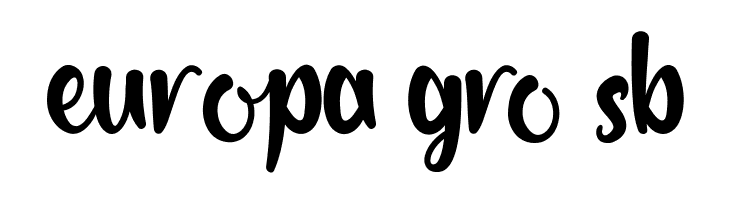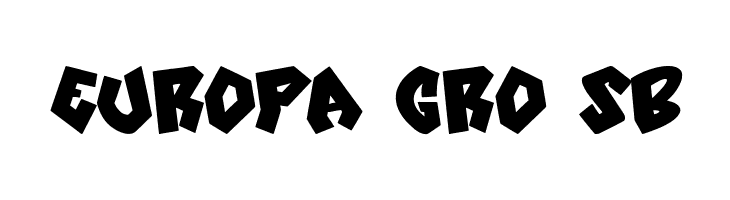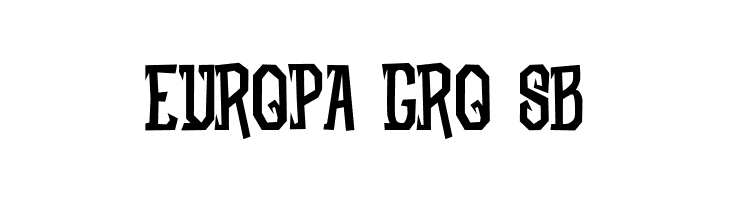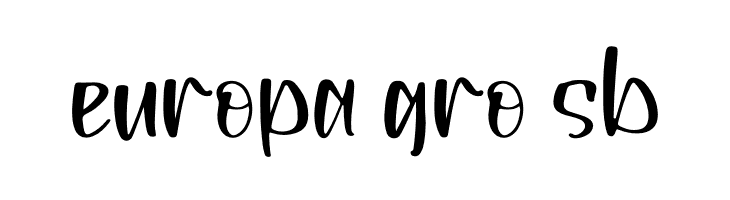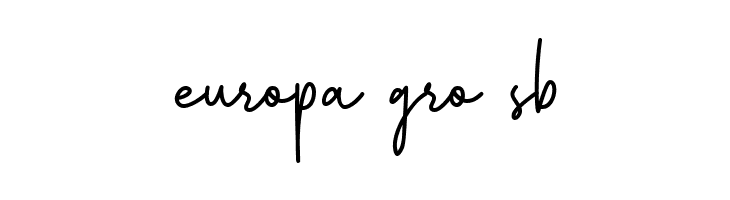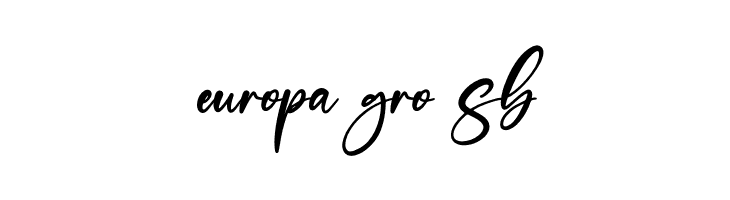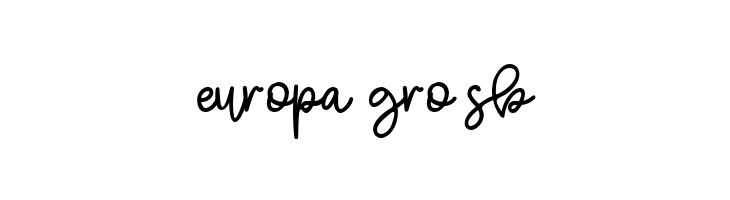
A bold, playful script font with a lively, handwritten style.
A bold, angular font with a dynamic and edgy style.
A bold, textured font with a vintage, rugged style.
A bold, gothic-inspired font with sharp, angular lines and exaggerated serifs.
A playful and whimsical cursive font with elegant, flowing characters.
A lively, handwritten script font with bold, flowing strokes.
A playful, handwritten font with tall, narrow letterforms and a whimsical style.
A dynamic and elegant script font with fluid, cursive strokes.
A playful, handwritten font with a dynamic, wave-like flow.